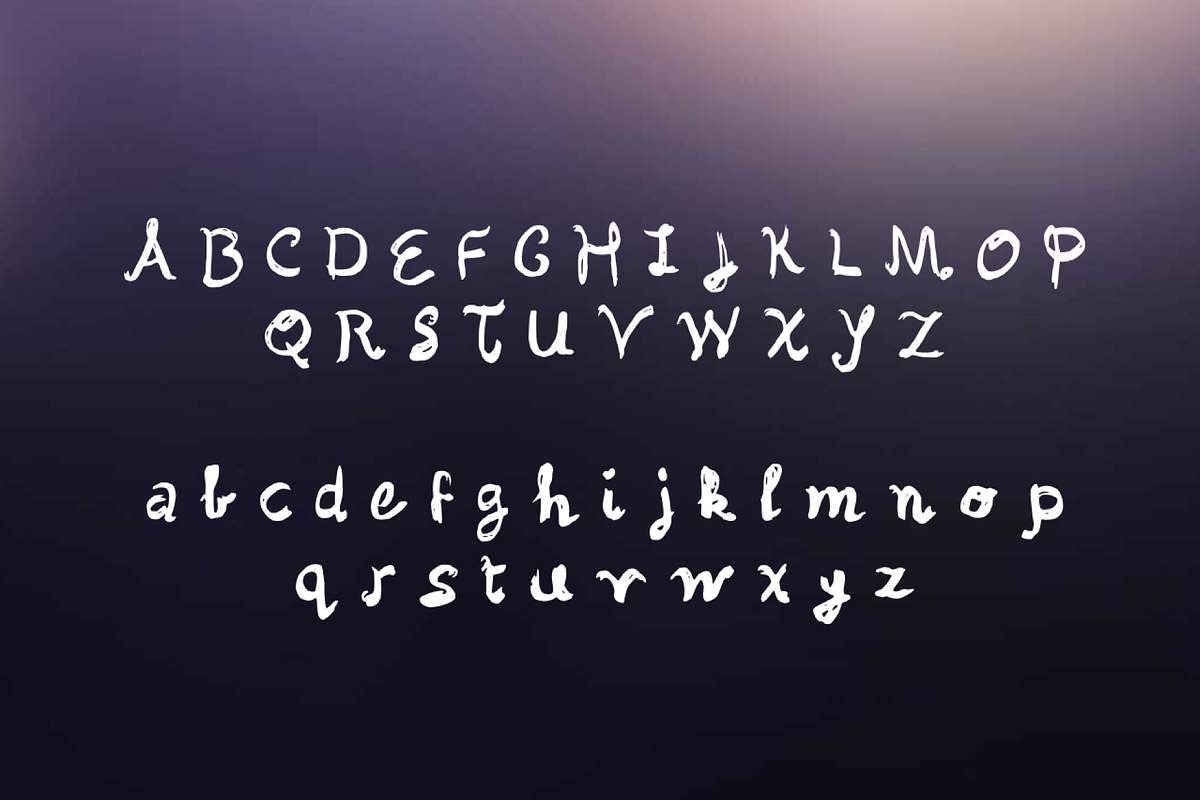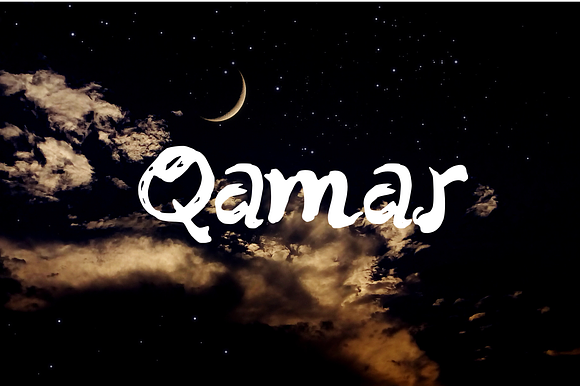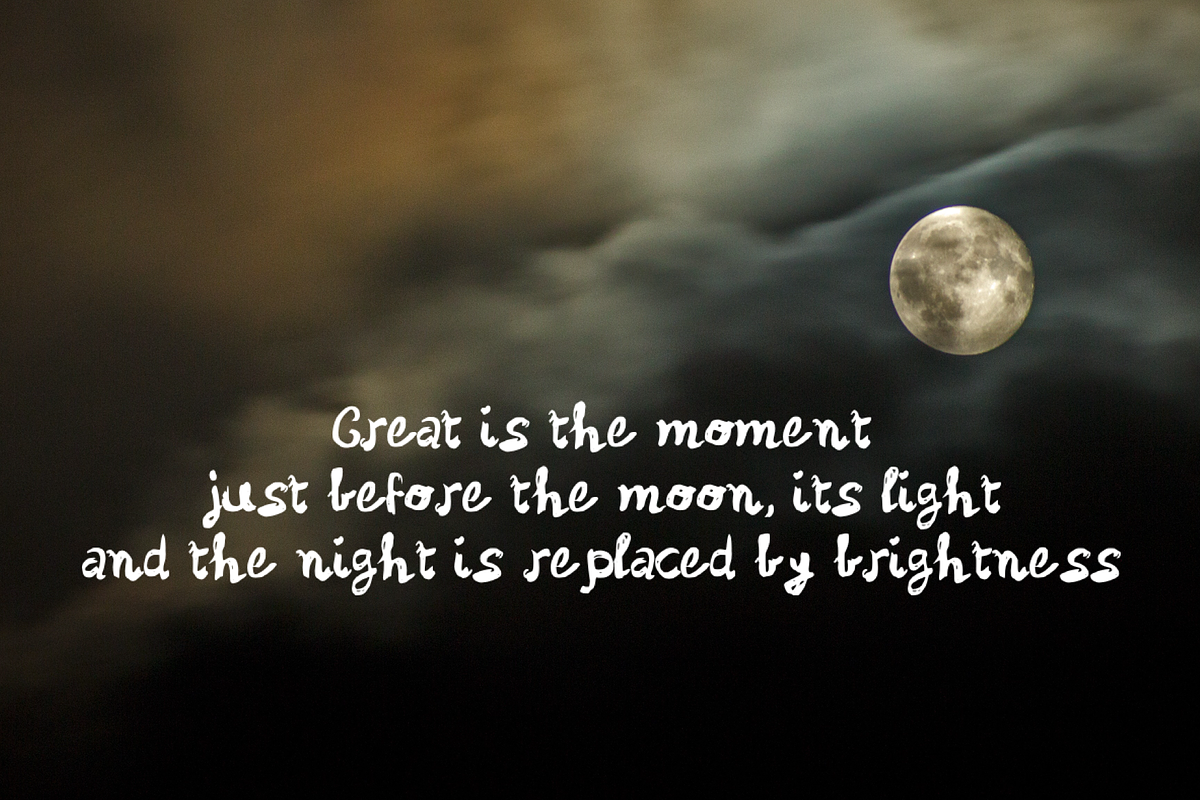
Qamar Handwritten Font
Qamar is a handwritten font. Ideal for logos, product packaging, header, poster, merchandise, social media.
Qamar Handwritten Font by Mila Visuals fits naturally into Branding, posters, packaging, typography.